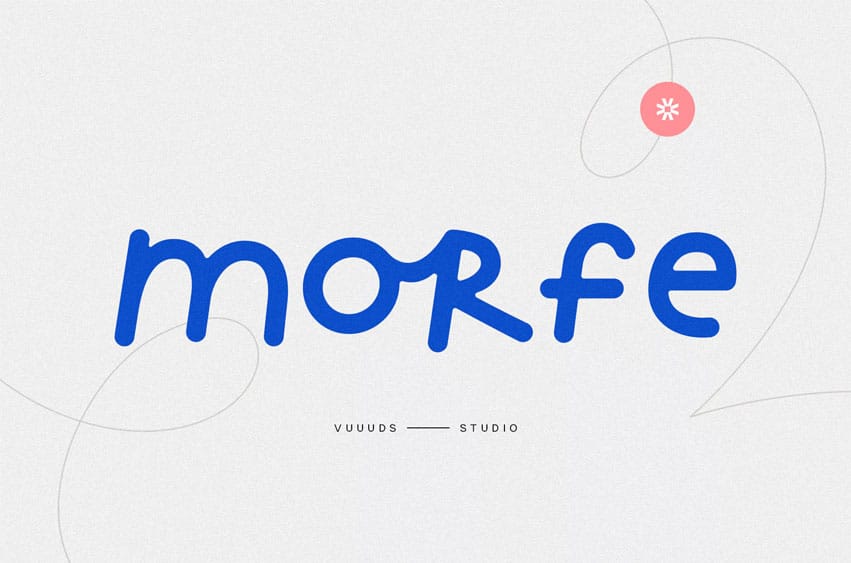
Morfe Font is a modern experimental display font; every single letter has been uniquely crafted. This font includes beautiful alternate glyphs. You can access the alternate glyph via Font Book (Mac user) or Windows Character Map (Windows user).